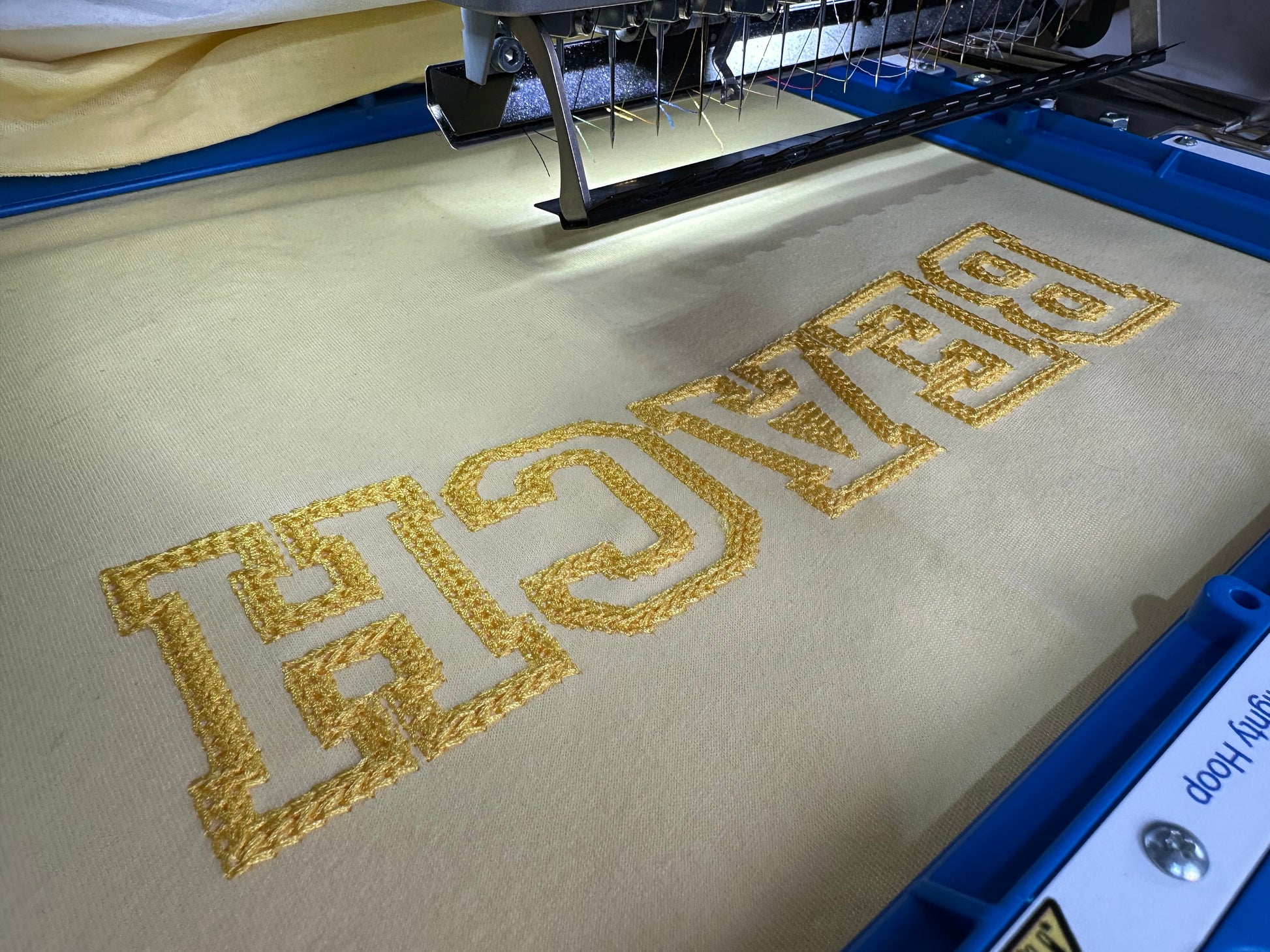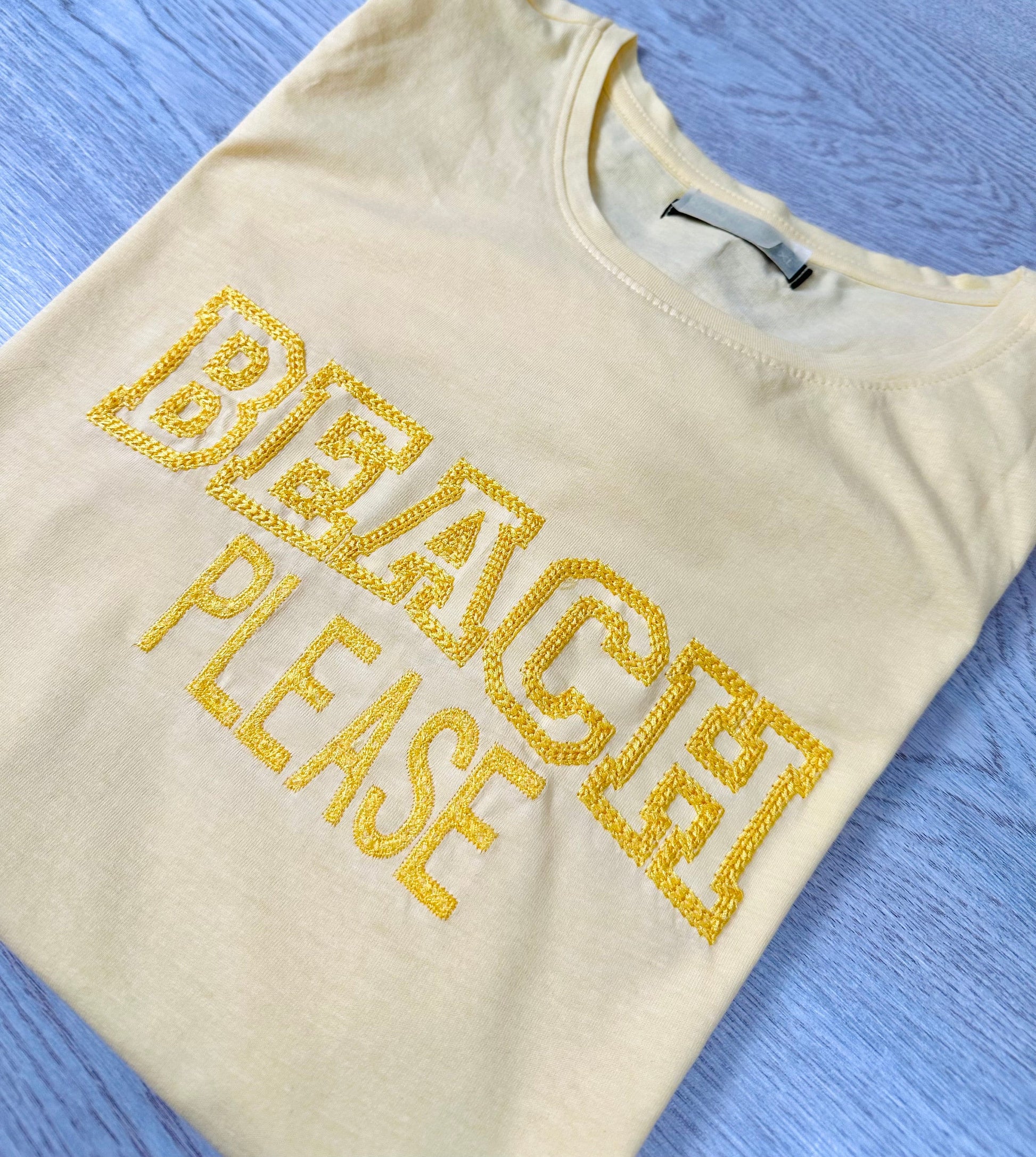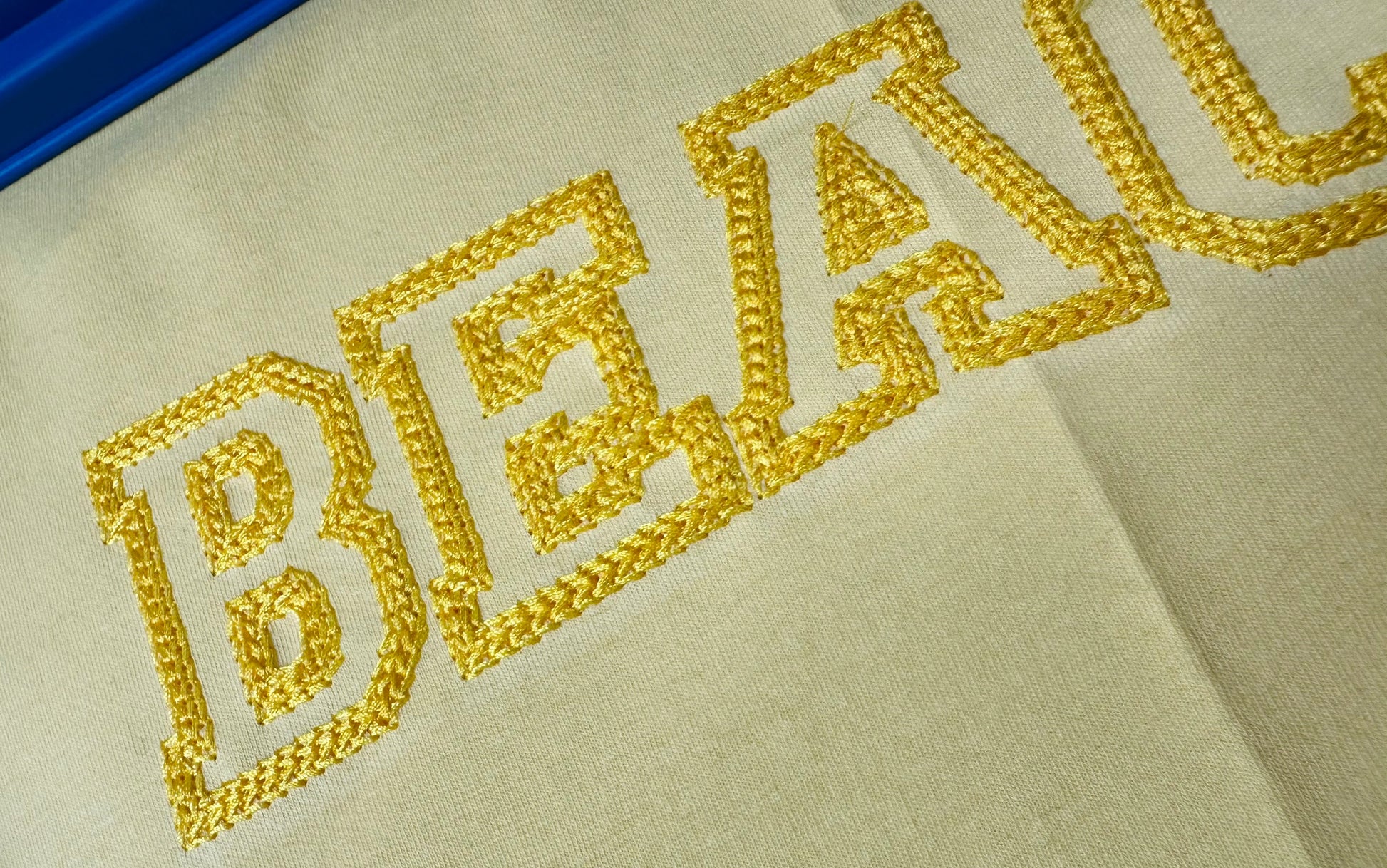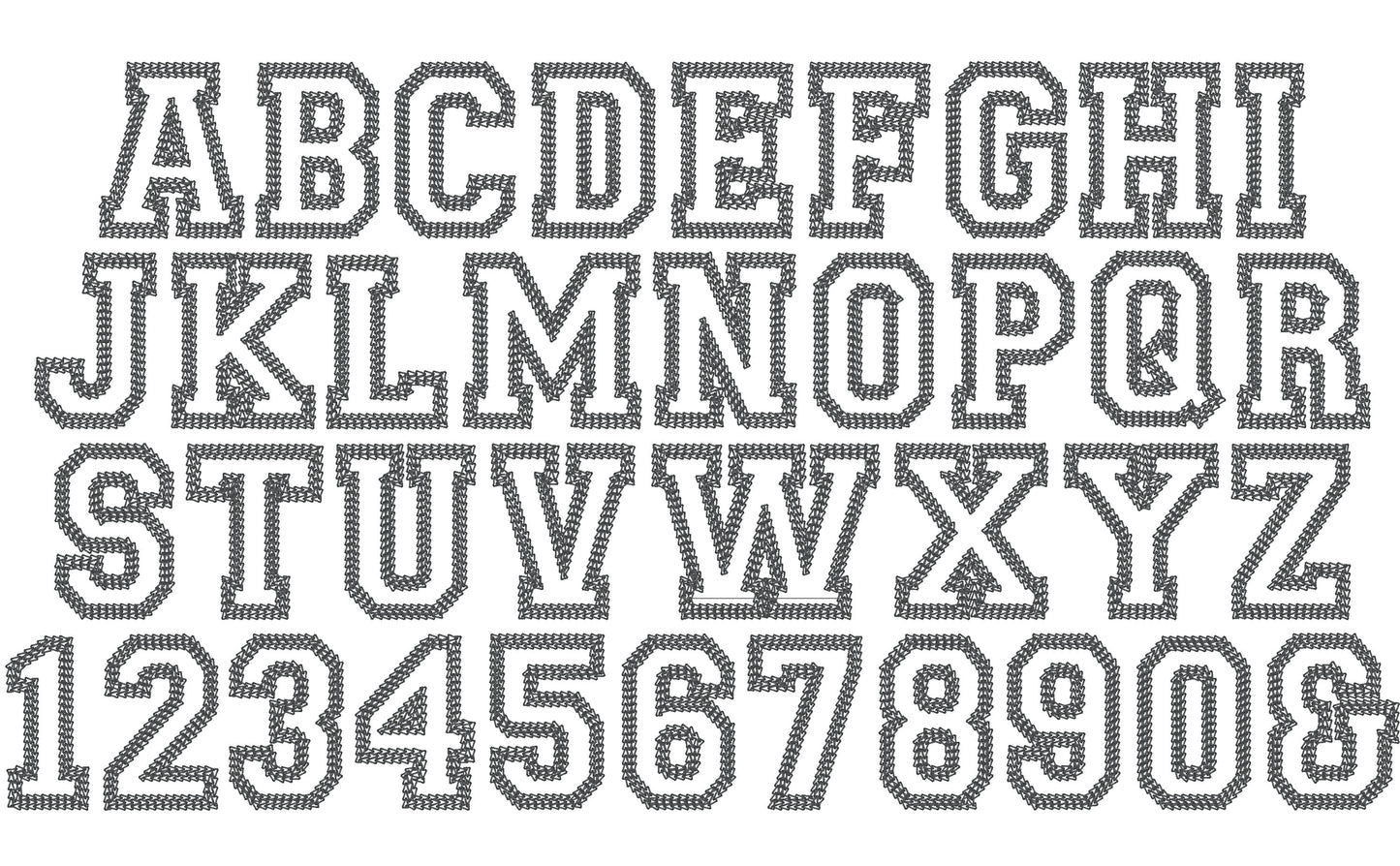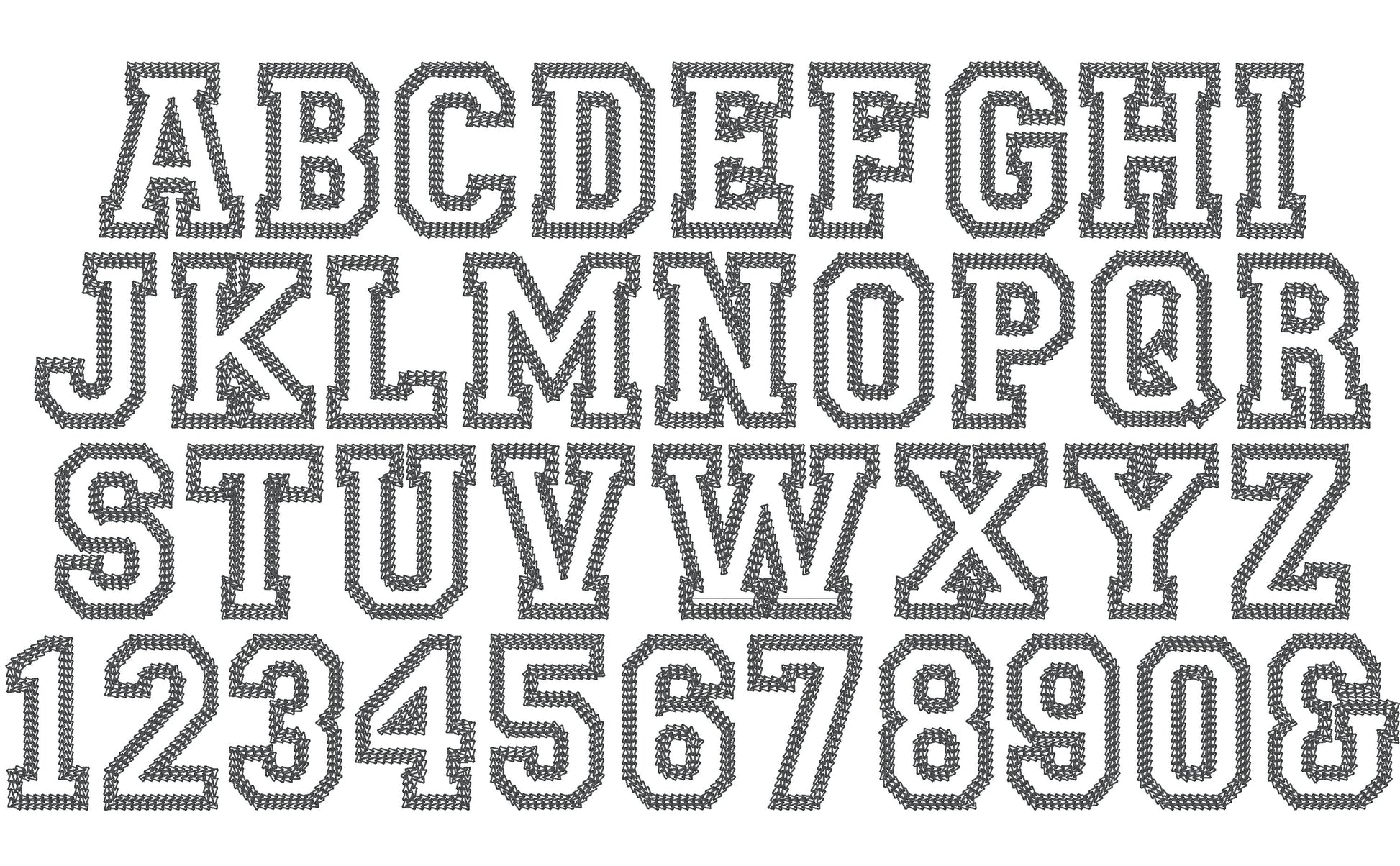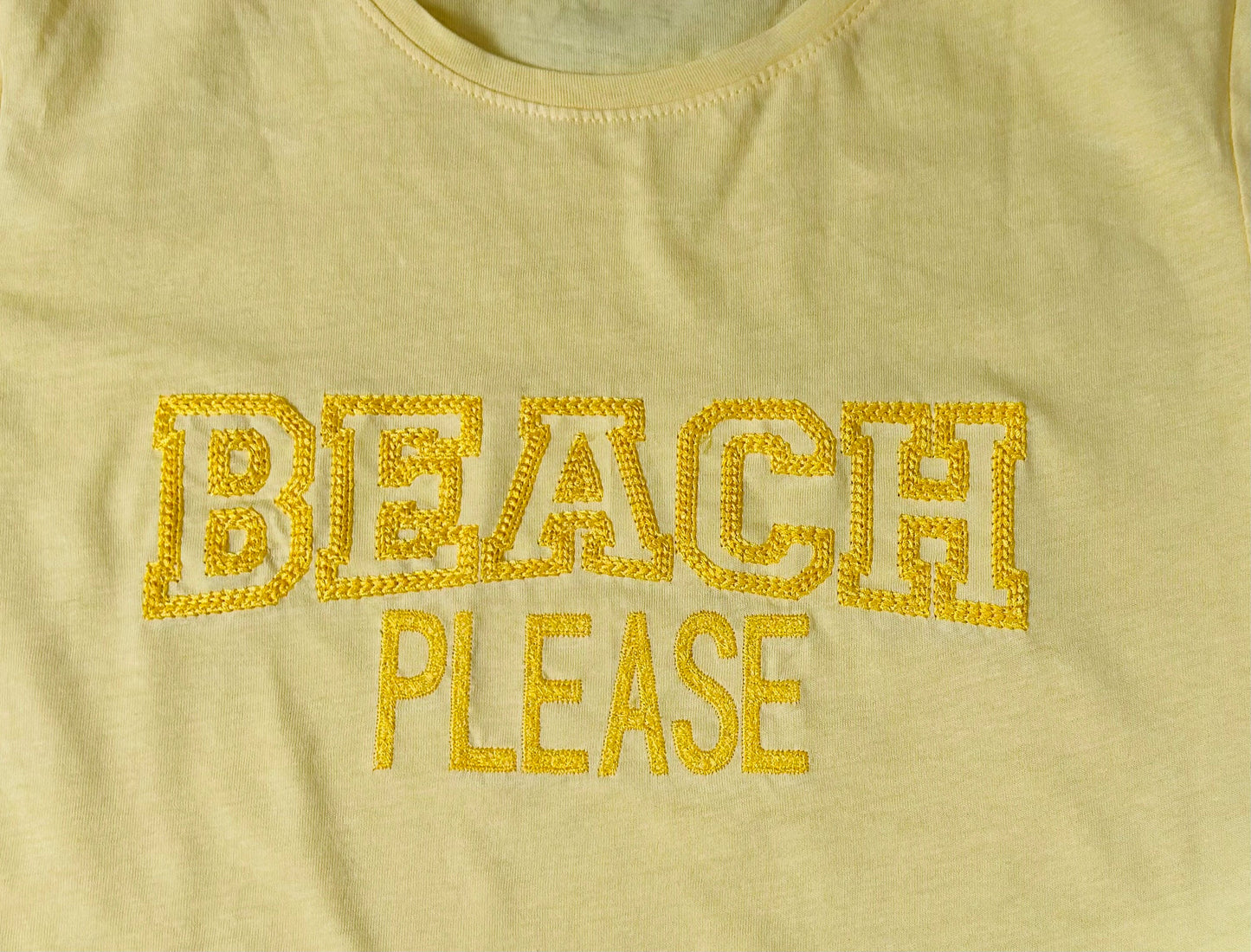
Or click to open the linkA varsity sport outline font stitched in wide chain stitch. Great for team shirts, sweatshirts, jackets and caps.
Uppercase letters A to Z, numbers 0 to 9 and an ampersand. Six sizes: 1.5, 2, 2.5, 3, 3.5 and 4 inches. Open outline letters in a wide chain stitch.